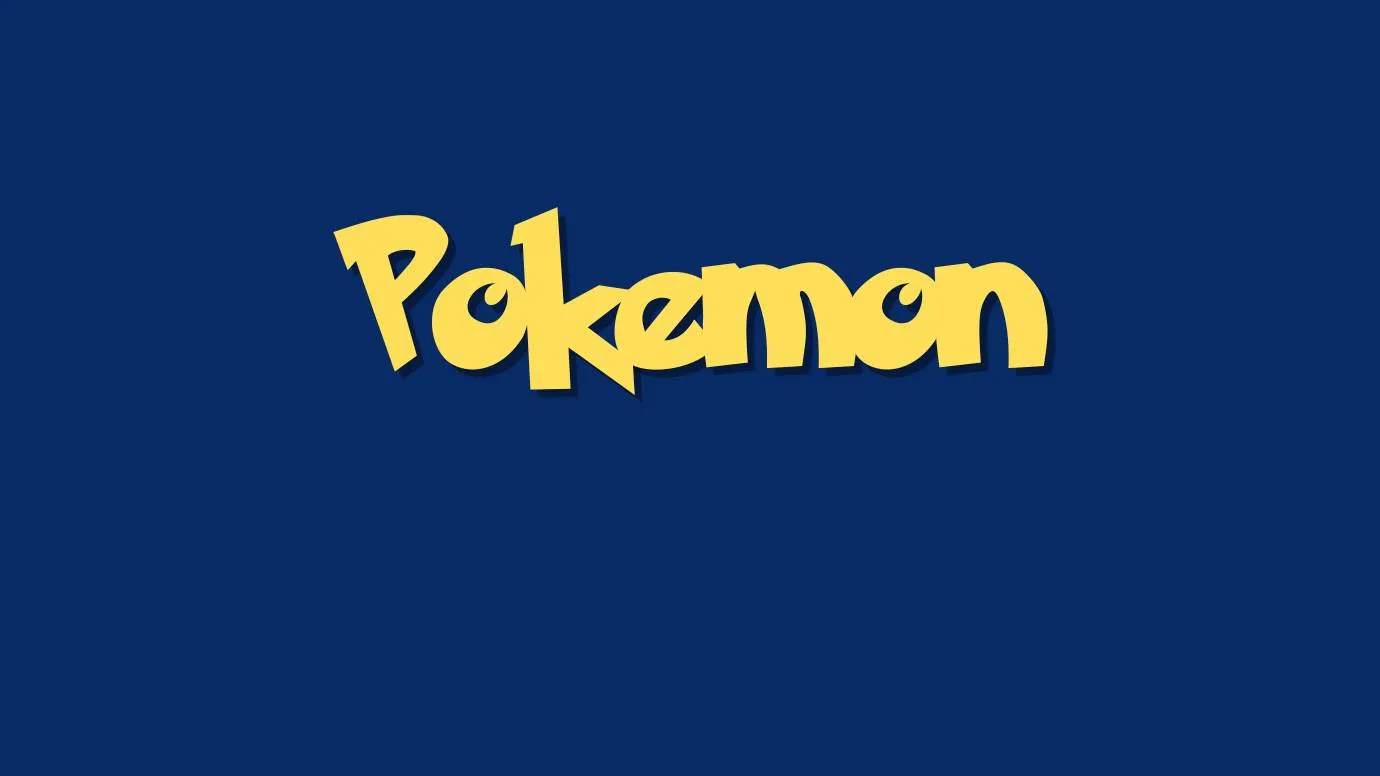
Pokémon is another well-liked and highly-used video game font that was produced on the logo of the most welcomed and admired video game, Pokemon.
It is a complete series of games that was initiated by a Japanese developer Game Freak however it was published by a Japanese Multinational company Nintendo along with Pokemon company.
Pokémon Font
DesignerNeale Davidson